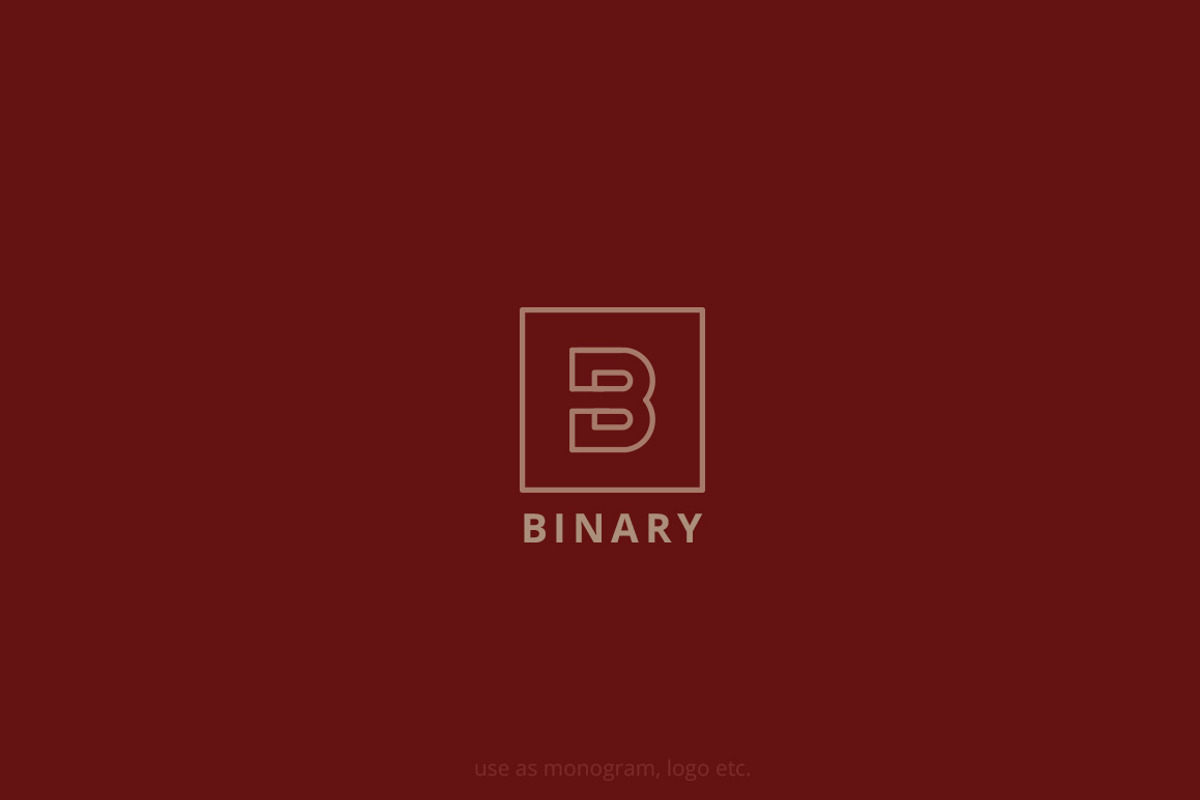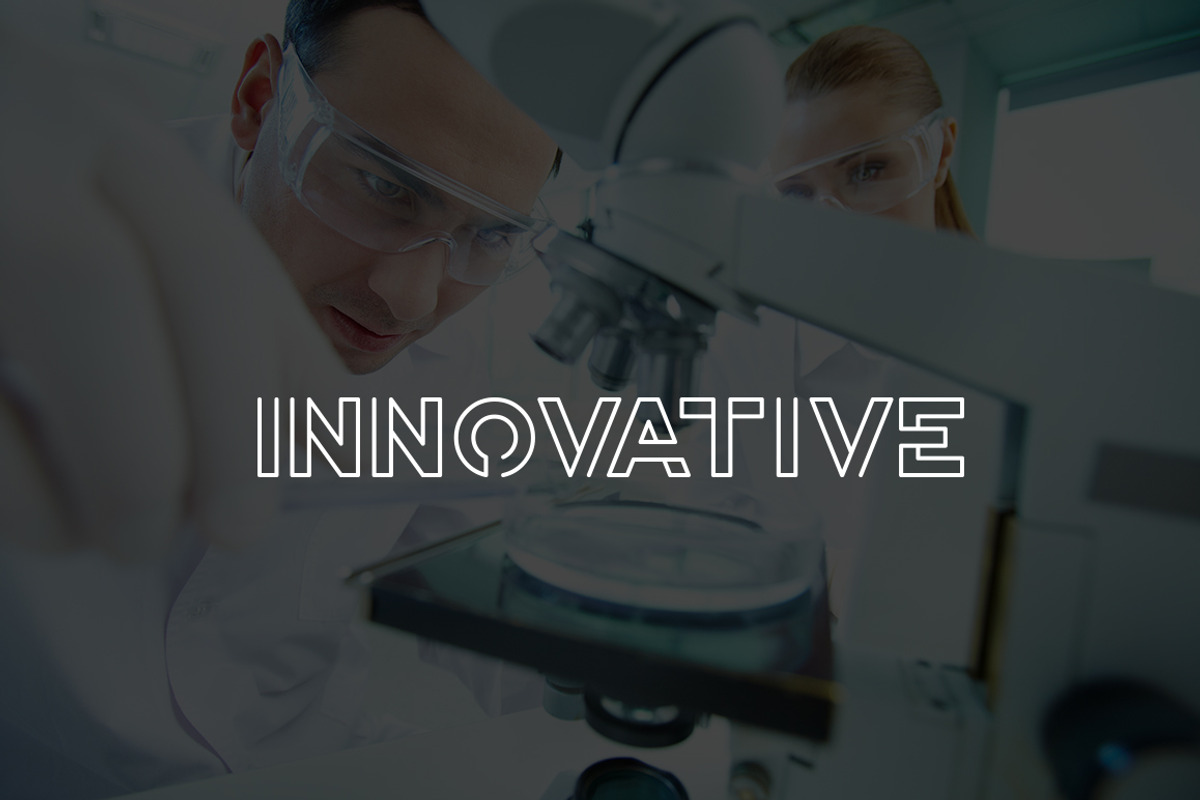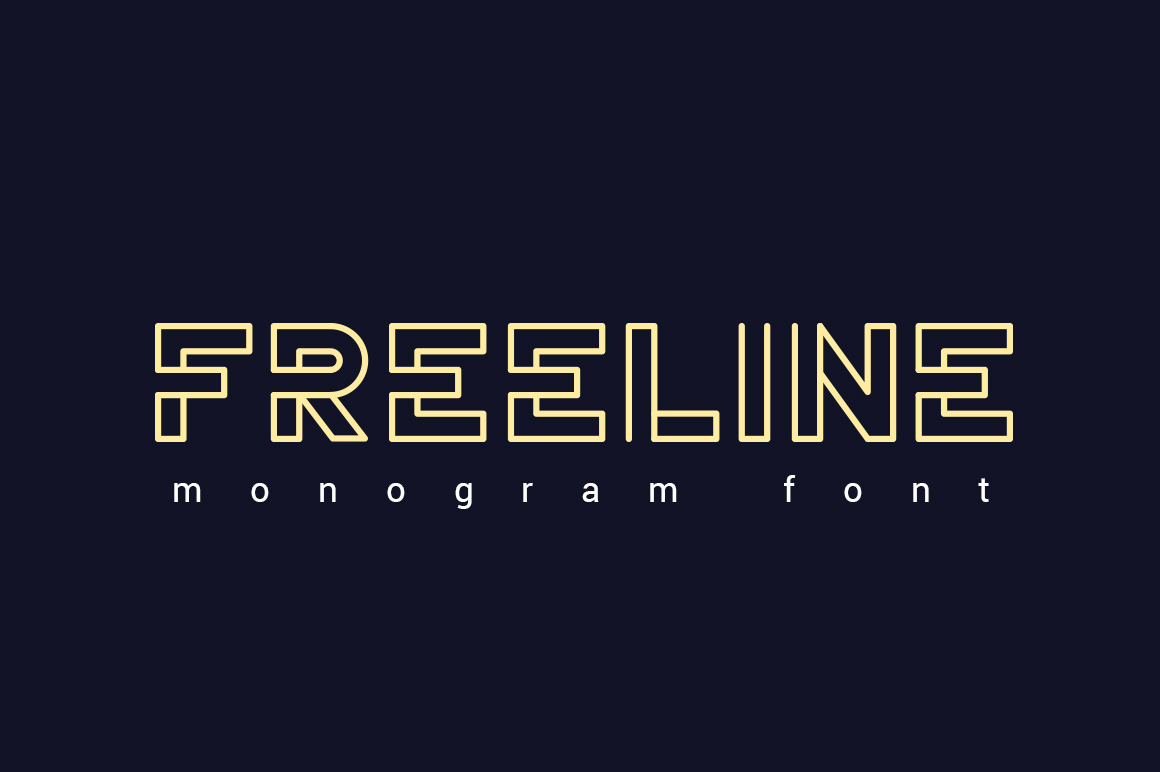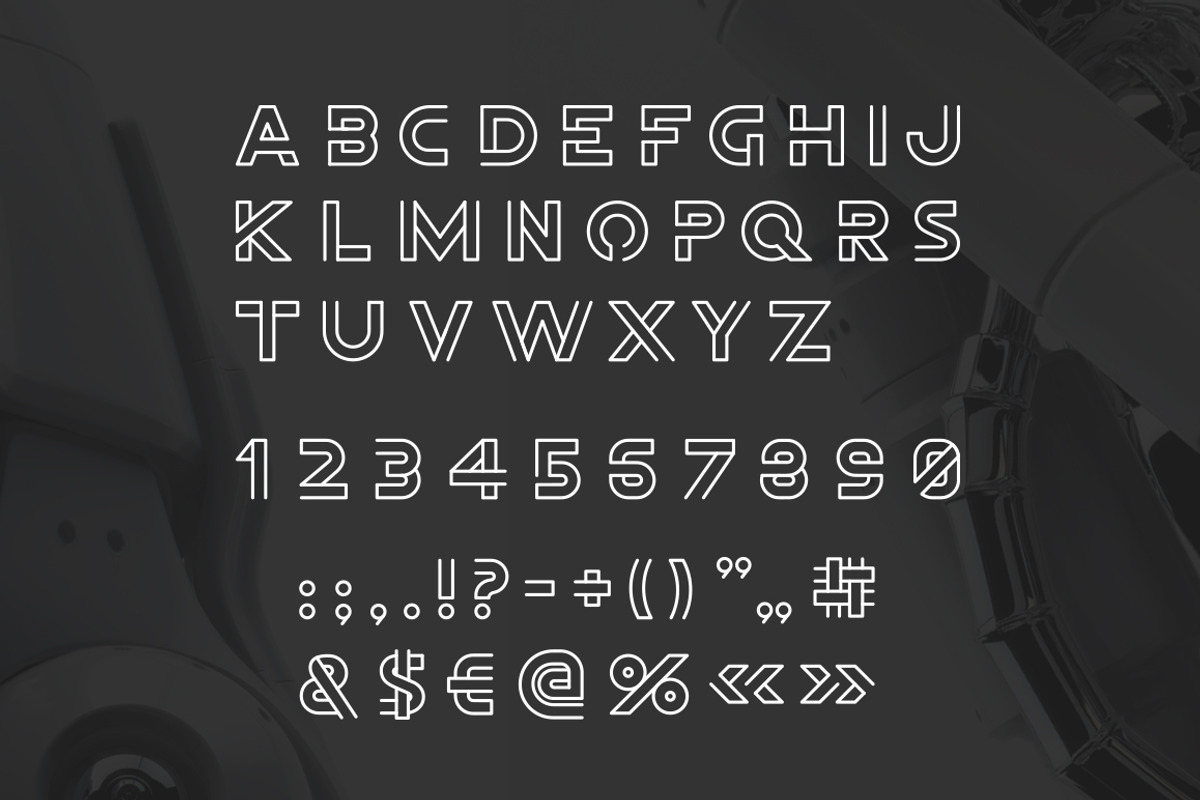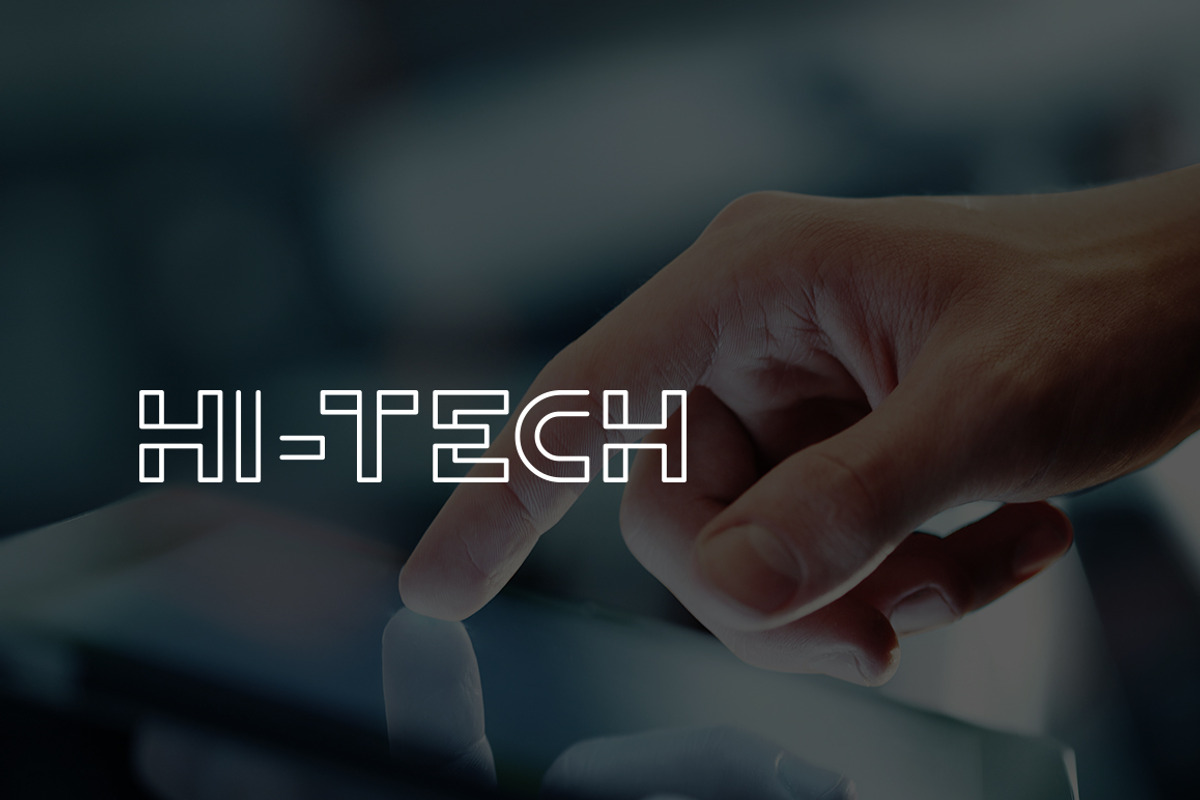
FreeLine Font
Freeline is fashion stylish creative font can be used as logo design and branding, titles & headers, posters & banners in such areas as fashion, high-tech, internet & computers, business innovations etc.